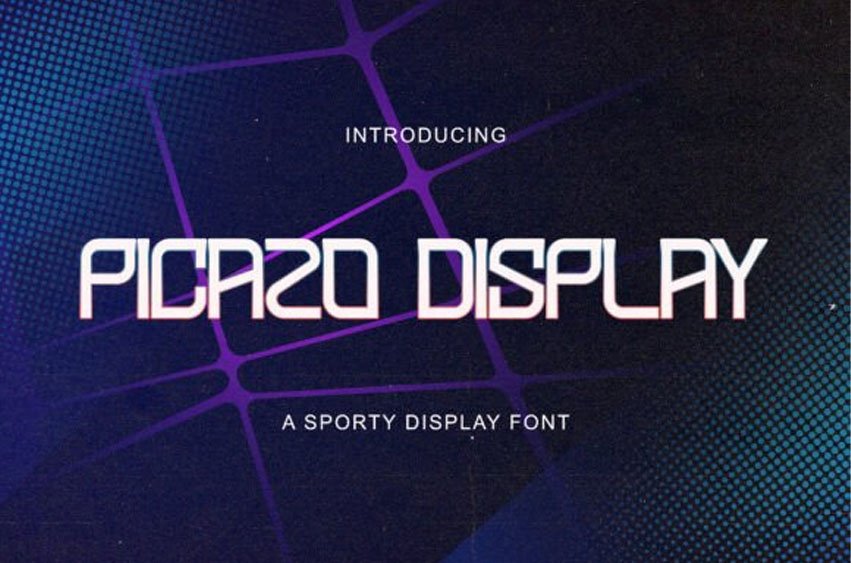
Picazo Display Font
Picazo Display Font is a dynamic and futuristic font with sharp, sleek letterforms.
Designed for sports branding, tech-related projects, and energetic designs, this font delivers a bold, high-performance look.